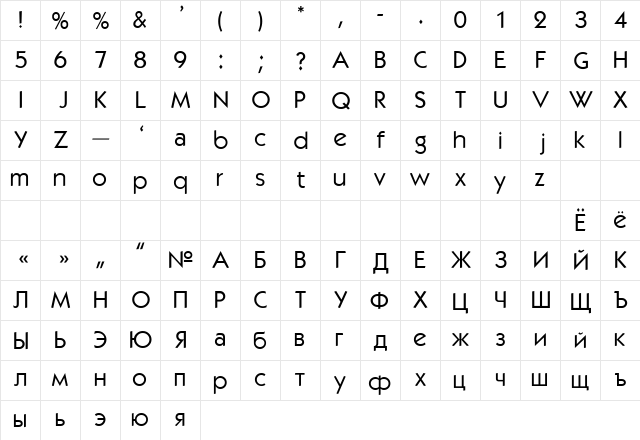
font328 Regular
Design Context for font328 Typeface
font328 offers clean, dependable letterforms without strong stylistic allegiance, making it a practical choice for designers who need flexibility.